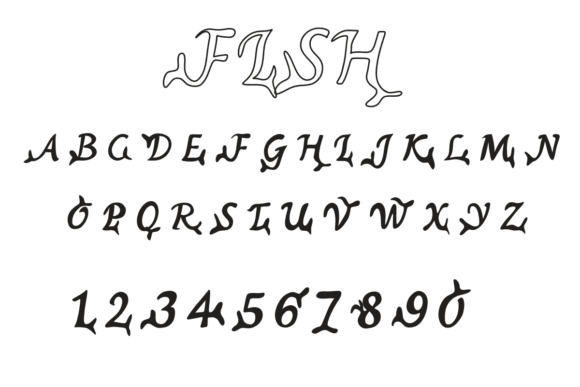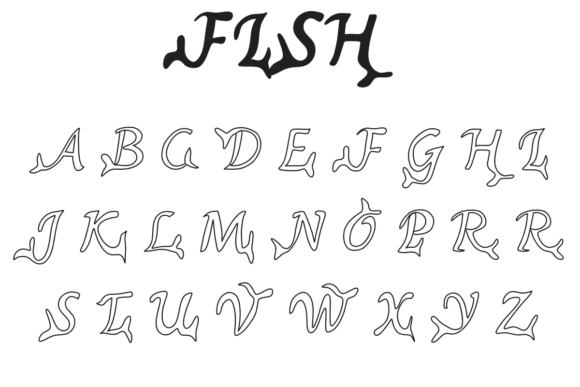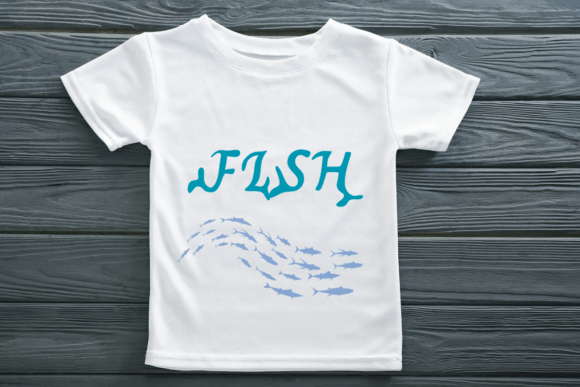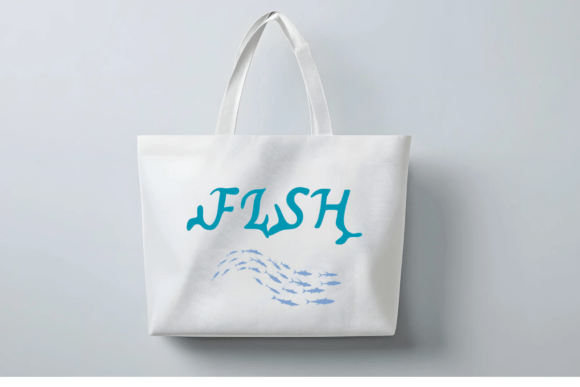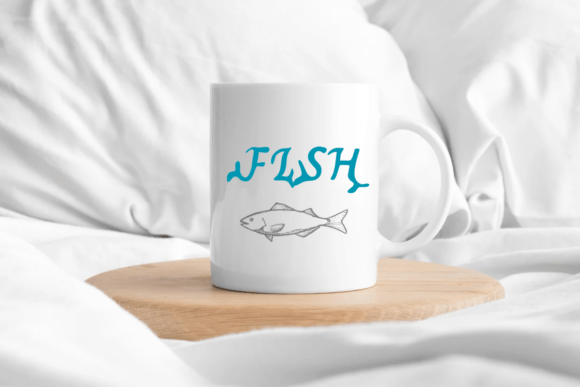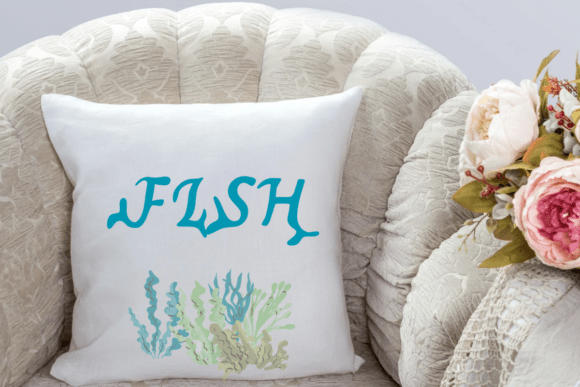
Swimming into the World of Design
Have you ever been mesmerized by the gentle ripples of a pond or the vibrant colors of a coral reef? For designers, the ocean is a treasure trove of inspiration, and the latest addition to the underwater world of typography is the delightful Fish Font.
This playful decorative font is designed to capture the essence of aquatic life, with letters that flow like fish tails and waves. Whether you’re creating a summer party invitation, a children’s book, or a marine-themed brand, Fish Font is the perfect tool to bring your designs to life. With its whimsical charm and versatility, it’s a valuable addition to any designer’s toolkit.
Fish Font Key Features
- Font Style: A unique, hand-drawn font with a whimsical and playful feel, perfect for creative projects.
- Character Set: Includes a comprehensive set of characters, including uppercase and lowercase letters, numbers, and punctuation marks.
Design Review: Fish Font
I recently had the chance to dive into the world of Fish Font, and I must say it’s a unique and quirky addition to any design project. Here’s what I liked about it:
- ✨ It has a playful, hand-drawn feel that’s perfect for adding some whimsy to your designs.
- ✨ The font is highly customizable, with a wide range of weights and styles to choose from.
- ✨ It’s surprisingly legible, even at smaller font sizes, making it a great choice for body text.
However, I did encounter a few limitations:
- ⚠️ The font may not be suitable for formal or professional projects, as its playful nature may come across as unprofessional.
- ⚠️ Some characters may not render correctly in certain contexts, which can be frustrating for designers.
- ⚠️ The font’s complexity can make it difficult to pair with other fonts, which may limit its versatility.
Overall, I think Fish Font is a fun and creative option for designers who want to add some personality to their projects. While it may not be suitable for every project, it’s definitely worth considering for designs that need a touch of whimsy and playfulness.
Common Use Cases and Tips
Fish Font is ideal for creating playful, whimsical designs. Use it for:
– Children’s book illustrations
– Cartoon-style graphics
– Social media graphics
– Party invitations
Tips:
– Use Fish Font in combination with other playful fonts for a unique look.
– Experiment with different font sizes and colors to create visual interest.
– Use Fish Font for headings or titles to add a touch of whimsy.